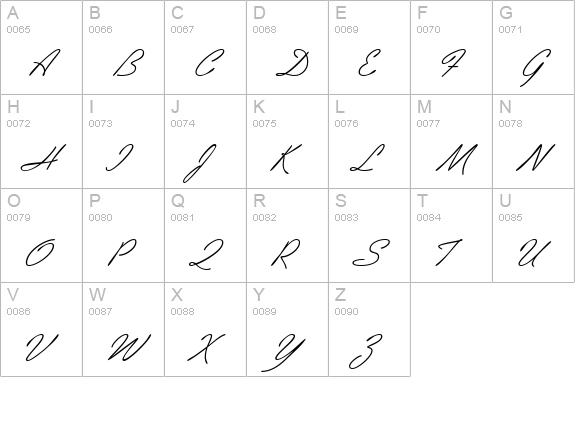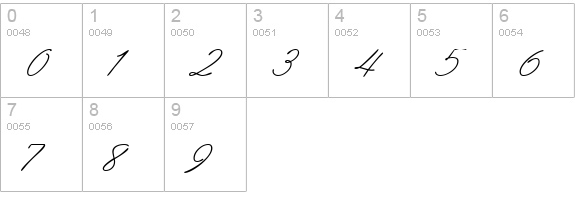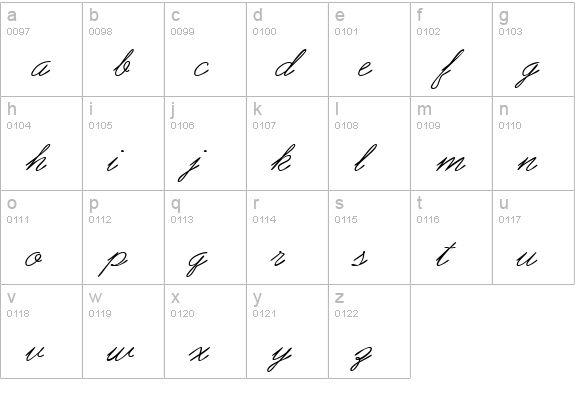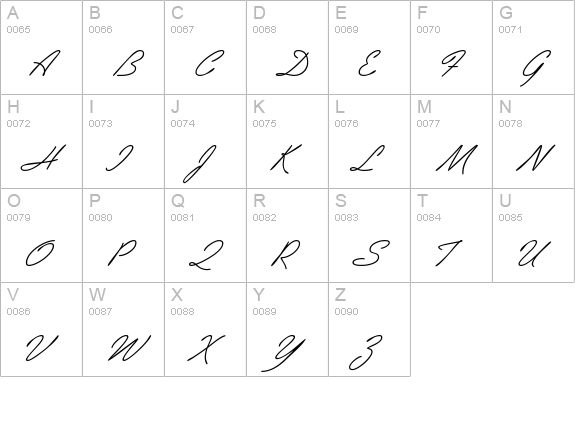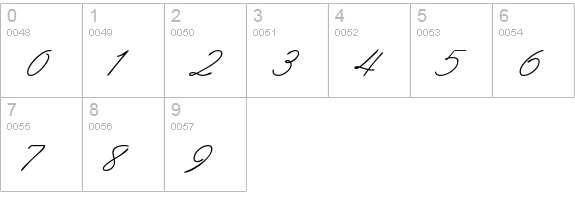
AbrazoScriptSSK Italic Font Details
AbrazoScriptSSK Italic is a distinctive, italic variant in the AbrazoScriptSSK typeface family \xE2\x80\x94 well suited to design and typography projects.
AbrazoScriptSSK Italic is a beautifully designed font that exudes elegance and sophistication. Its graceful curves and stylish letterforms make it perfect for adding a touch of class to any project. The italic style adds a sense of movement and fluidity, making it ideal for conveying a sense of energy and dynamism. This font is not only visually appealing but also highly versatile, suitable for a wide range of design applications including branding, invitations, and editorial design. Its unique aesthetic makes it stand out from the crowd and adds a touch of luxury to any design. Best of all, AbrazoScriptSSK Italic is completely free to download at FontsMarket.com. This means you can elevate your design projects without any cost, making it an excellent choice for both personal and commercial use. Don't miss out on this opportunity to enhance your projects with this stunning font!